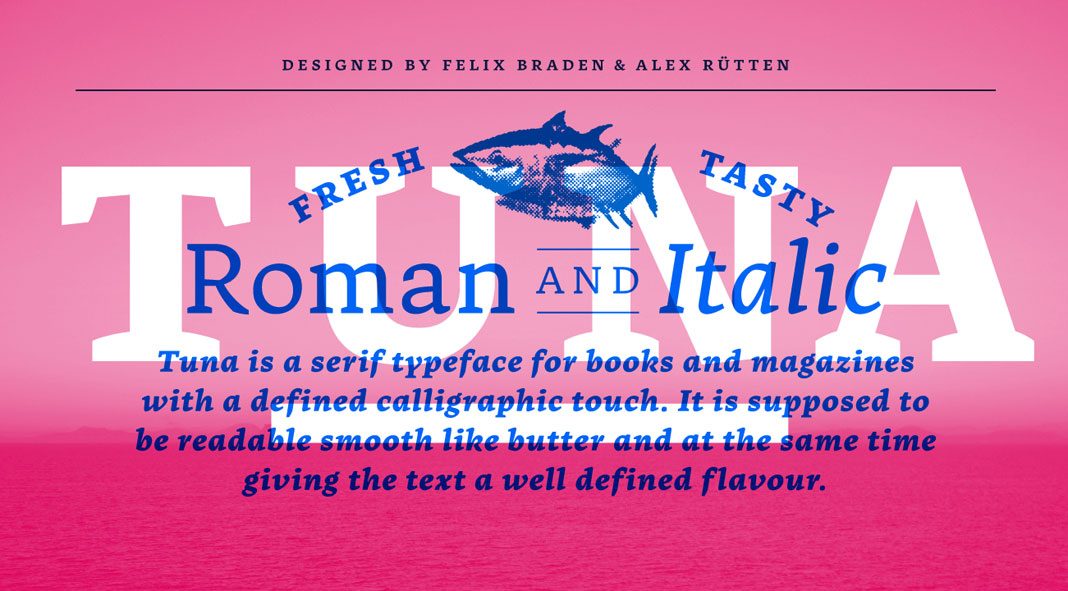
Tuna, a new serif font family published by Ligature Inc.
Designed by Felix Braden and Alex Rütten of foundry Ligature Inc, Tuna is a new serif font family that combines a touch calligraphy with the professional needs of contemporary typography. Whether print or on screen, the 10 styles (5 weights plus matching Italics) offer great readability also in long text sections. The typeface has been designed by Felix Braden and Alex Rütten with an eye to cross-media projects. With well-defined shapes and unique details, the family is a great all-rounder. The 5 weights (ranging from light to heavy) consist of more than 700 glyphs in total. Its extensive character set supports all Western, Eastern, and Central European Languages. The extensive set of typographic features includes small caps, lining figures, oldstyle figures, tabular osf, small figures, fractions, nominators, denominators, inferiors, contextual alternates, and ordinals. This family has been made for professional typography!